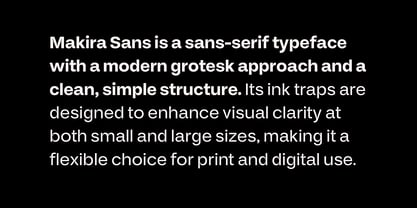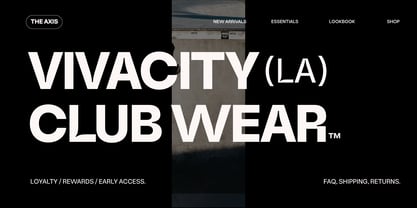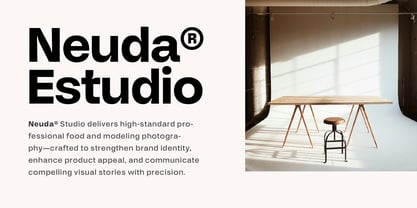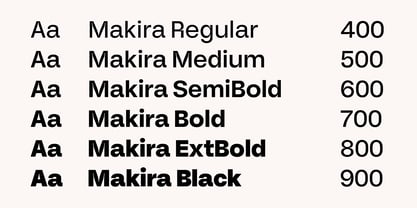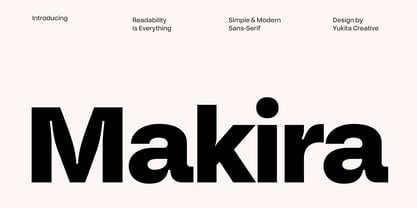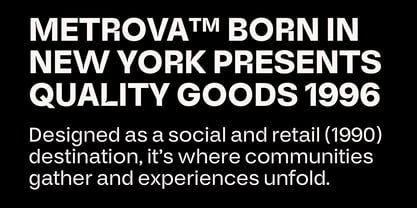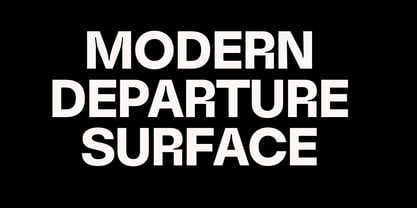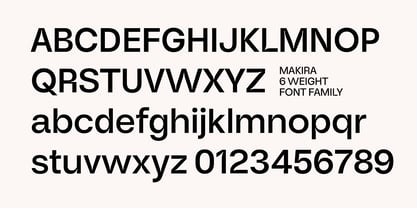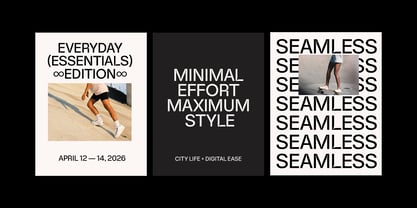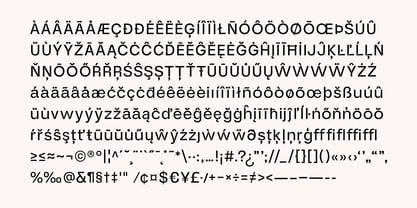
Makira
by Yukita Creative
The Makira Font Family was designed by Yukita Creative and published by Yukita Creative. Makira contains 6 styles and family package options. More about this family
Makira Sans is a modern grotesk sans-serif font crafted for professional designers, creative agencies, and web developers. Designed with clean and simple letterforms, this versatile typeface features functional ink traps to enhance readability and clarity across all sizes. Perfect for branding, logo design, editorial layouts, web design, UI/UX interfaces, advertising, and both print and digital projects, Makira Sans delivers a minimal, contemporary, and professional aesthetic. With 6 font weights from Regular to Black and multilingual support, this modern grotesk typeface adapts seamlessly to various creative needs. Ideal for visual identity systems, modern typography projects, and clean design concepts.